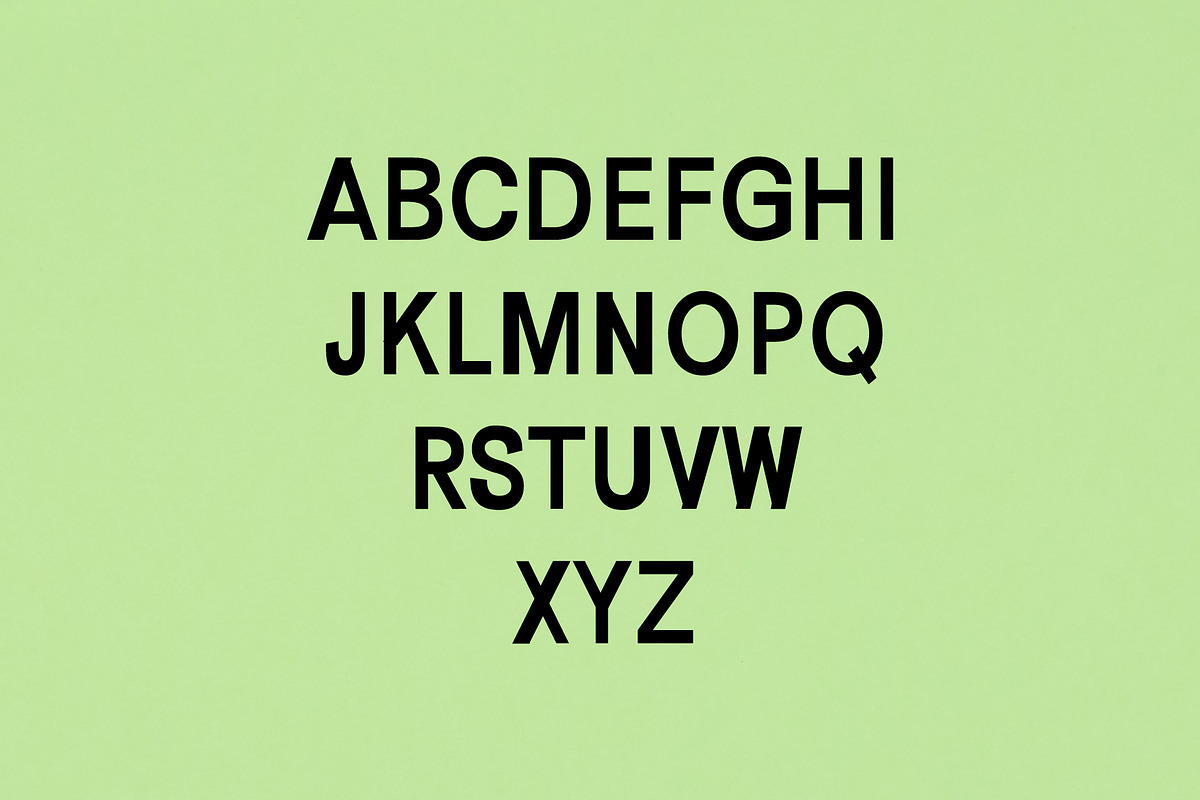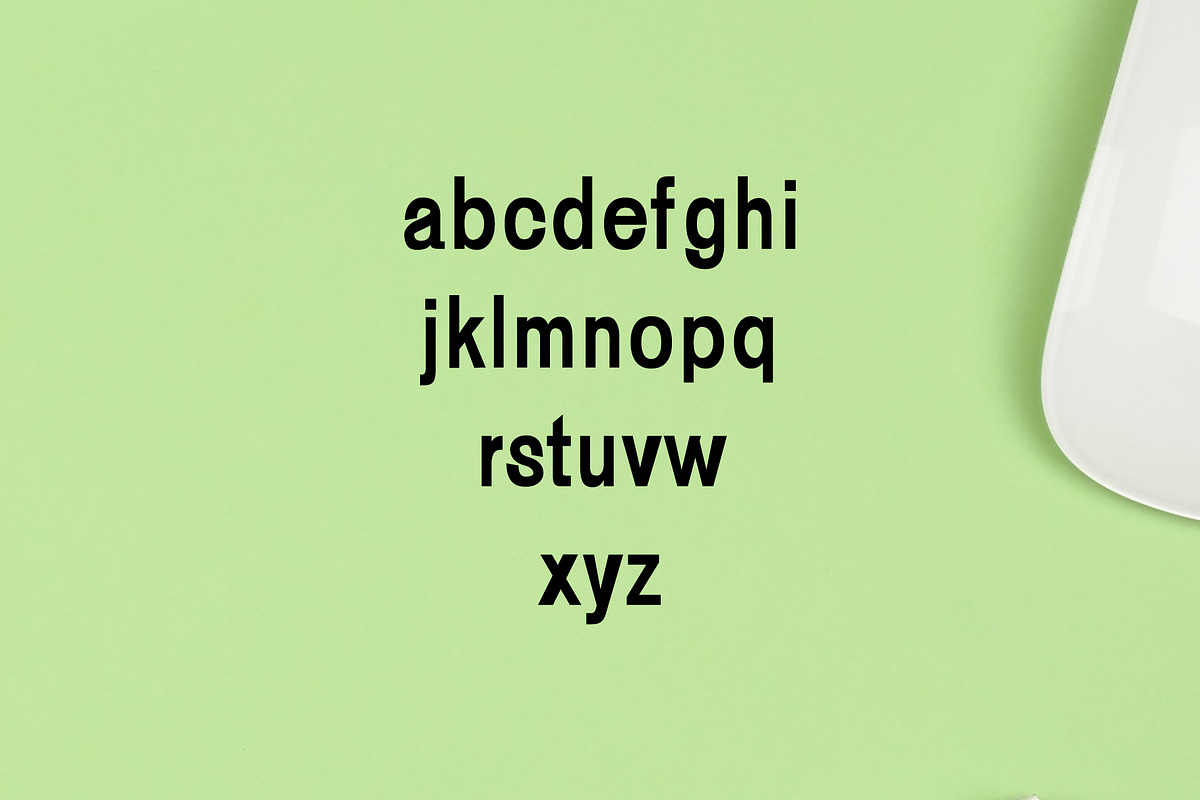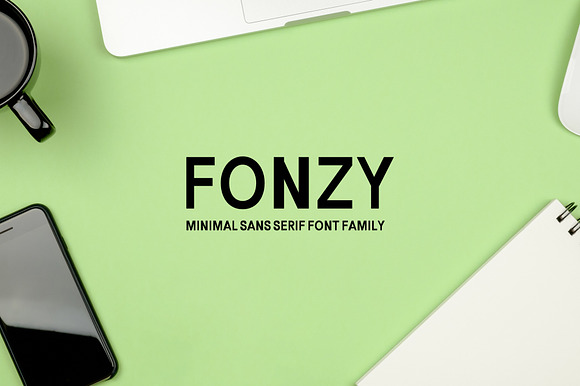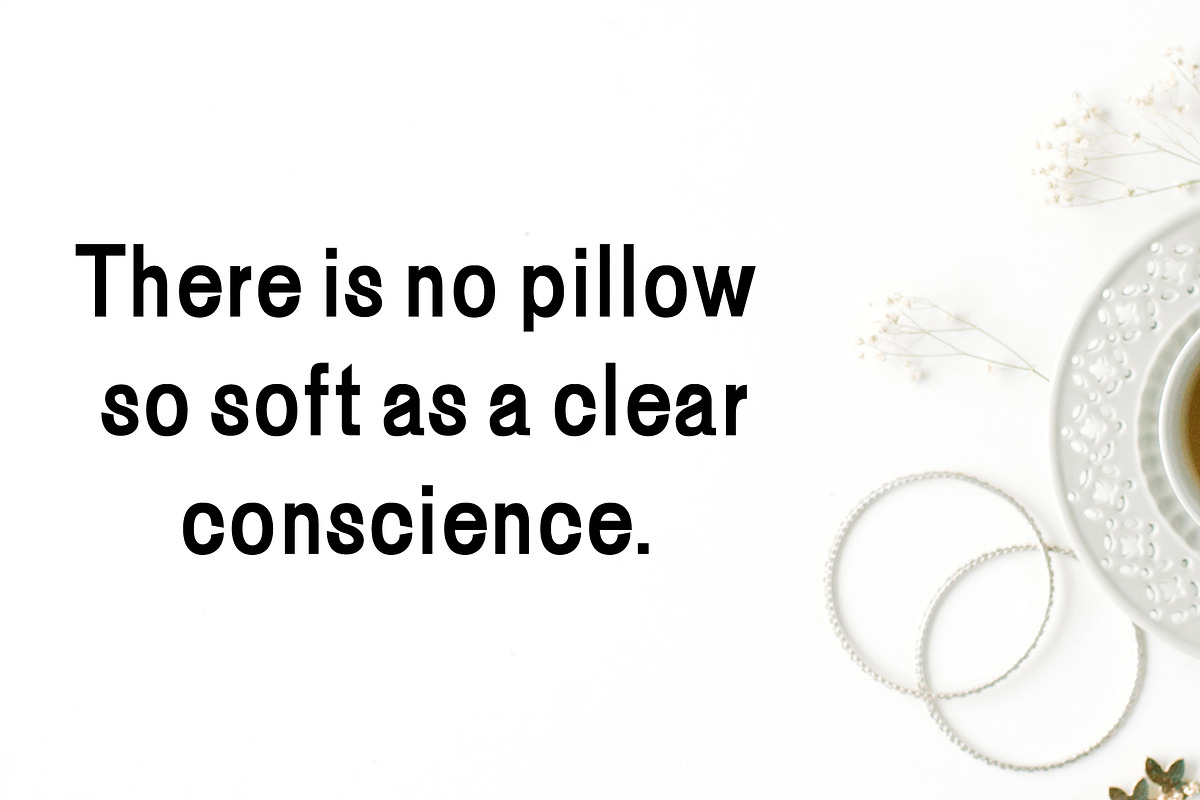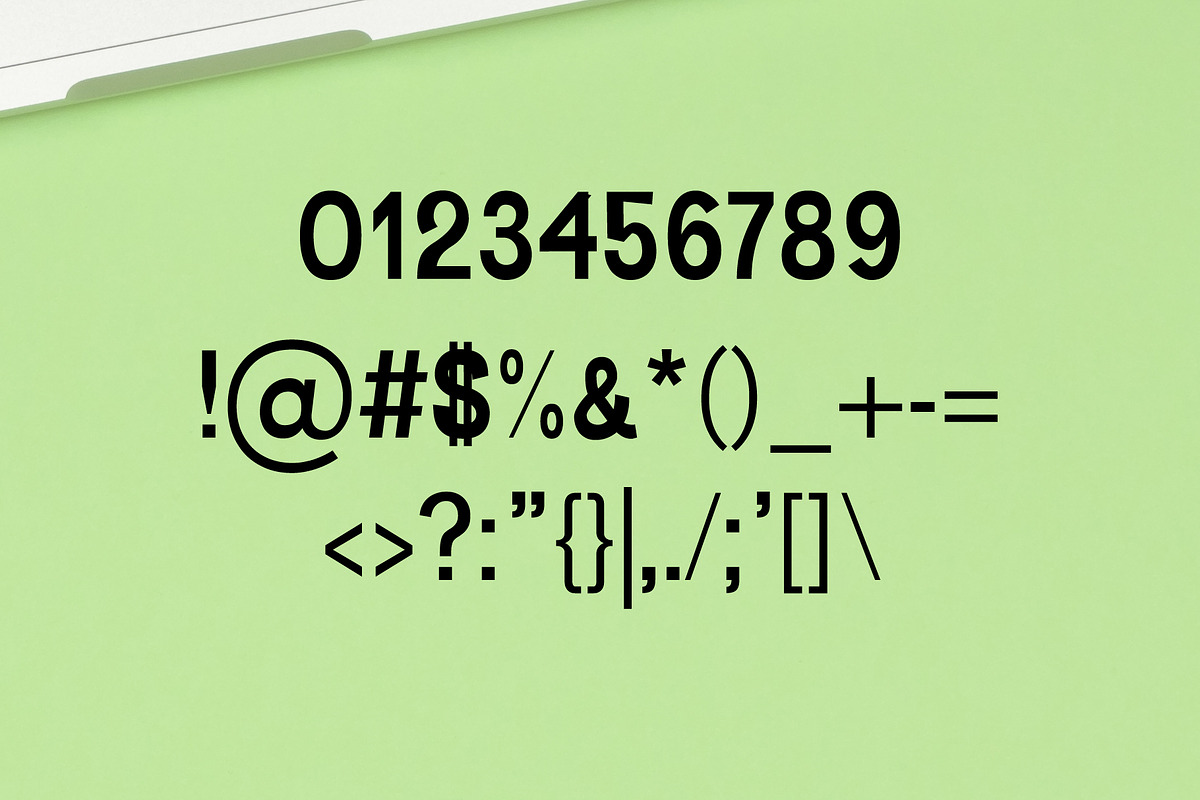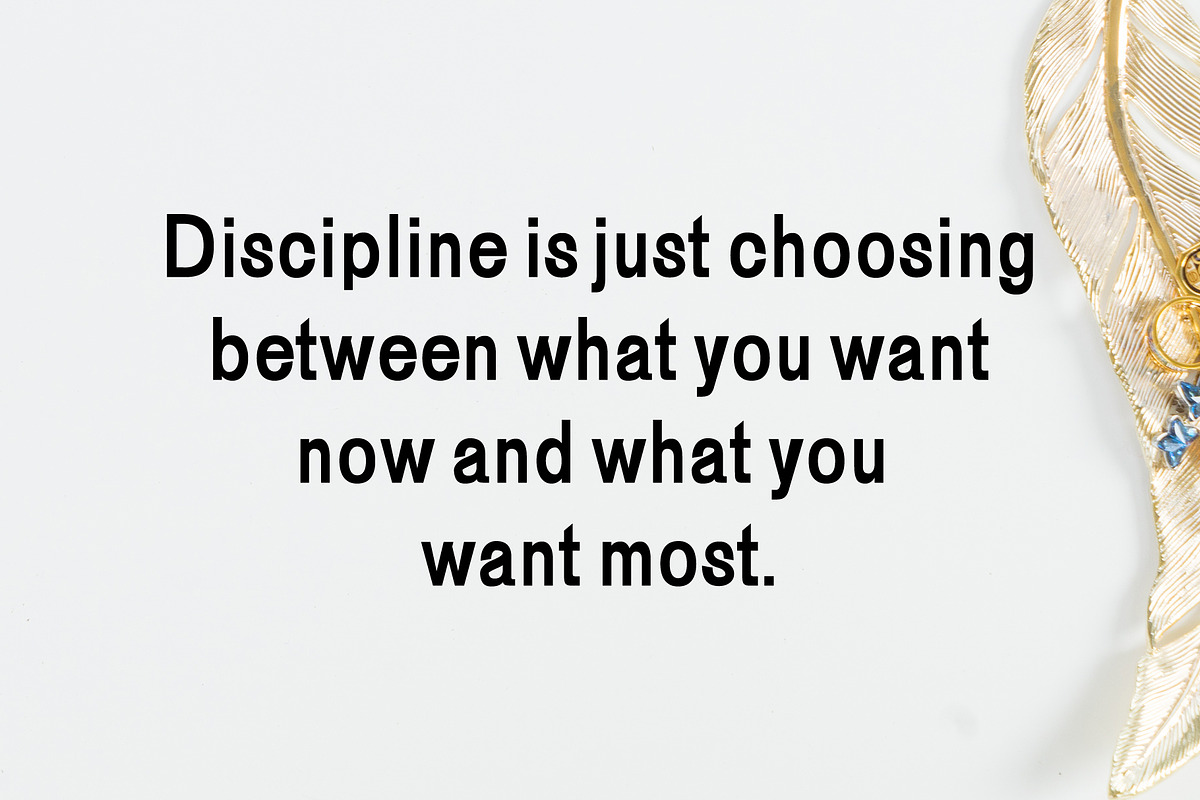
Fonzy Minimal Sans Serif Font Pack
Fonzy is a clean vibrant sans serif 5 font family pack. This font has a strong personality, that makes it perfect for use in the headline, wedding invitation, greeting cards, T-shirt, branding and logo projects, merchandise, social media posts, product packaging, or any design that you create.
Font Weight: Regular, Thin, Light, Outline and Bold
Fonzy Minimal Sans Serif Font Pack by Creativetacos fits naturally into Branding, posters, packaging, typography.